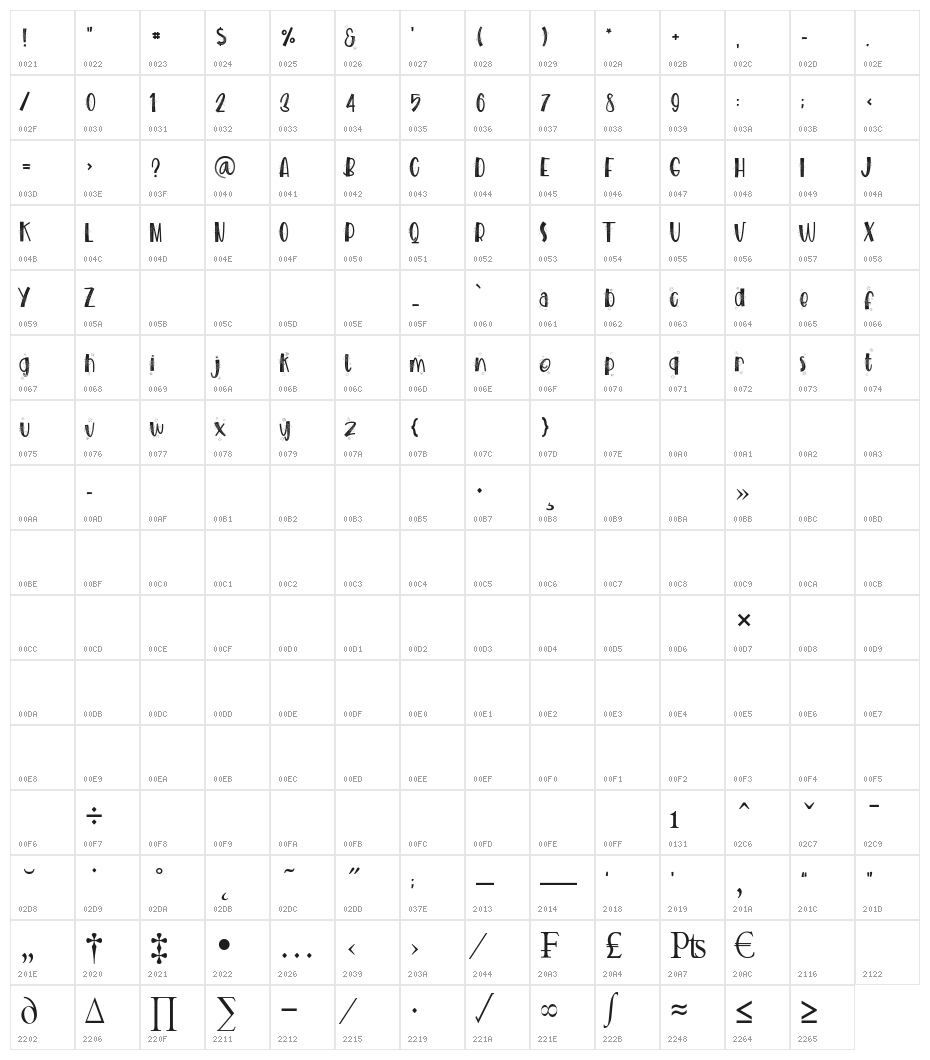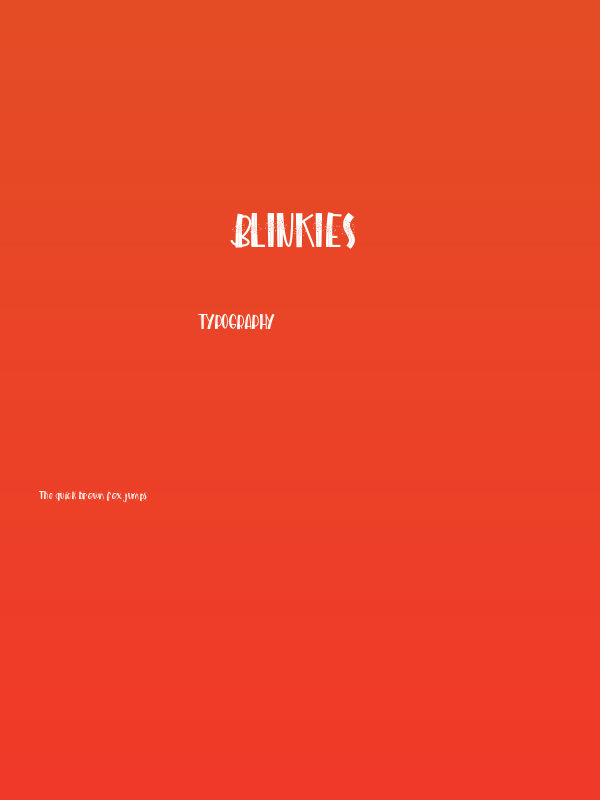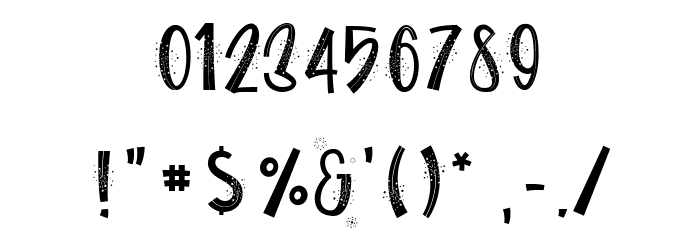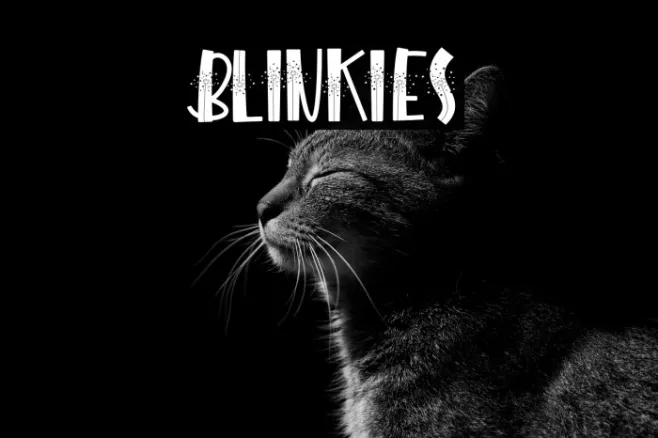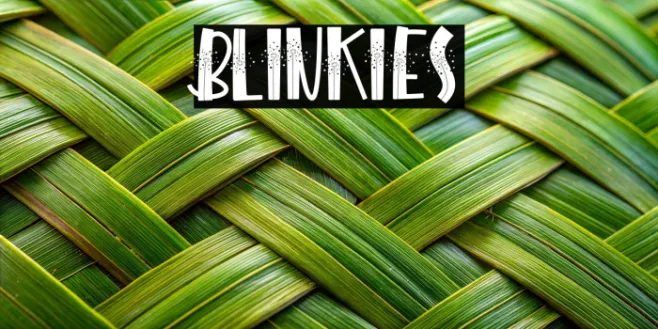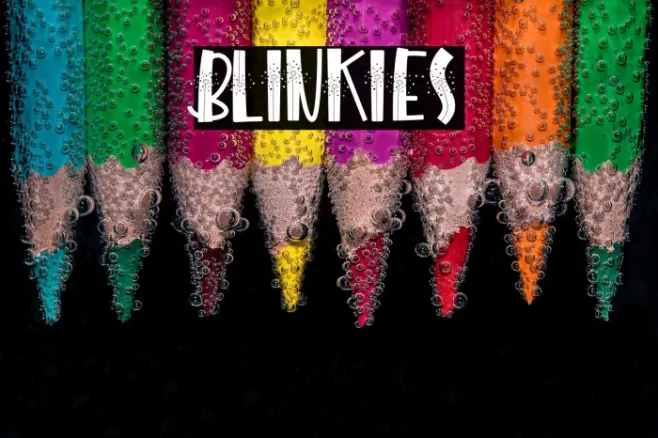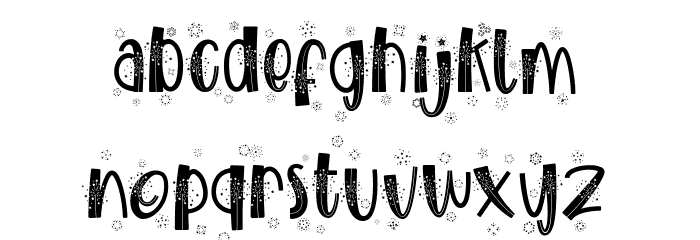
BLINKIES Font
BLINKIES Description
This playful and whimsical font features a unique blend of bold, irregular strokes and decorative elements that create a lively and energetic appearance. The uppercase and lowercase letters exhibit a hand-drawn style with varying line thicknesses, adding to its charm. The inclusion of small decorative dots and stars within the characters enhances its playful nature, making it stand out. The numbers and special characters maintain the same lively aesthetic, ensuring consistency across all glyphs. This font is ideal for projects that require a fun and informal touch.
| Proposed Projects | Perfect for children's books, party invitations, playful branding, and creative posters. |